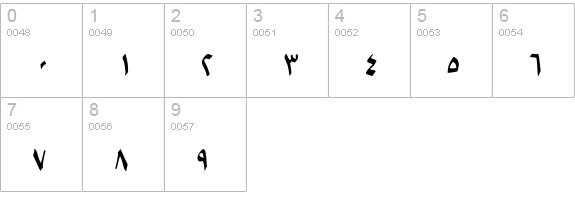
B Setareh Bold is a strong, high-contrast variant in the B typeface family \xE2\x80\x94 well suited to headlines, attention-grabbing titles, and strong calls-to-action.
B Setareh Bold is a striking and versatile font that exudes confidence and modernity. Its bold and impactful typeface is perfect for making a statement in headlines, titles, and logos. With its clean lines and strong presence, B Setareh Bold commands attention and adds a touch of sophistication to any design project. The best part? B Setareh Bold is available for free download at FontsMarket.com. This means you can easily access this premium quality font without any cost, making it a valuable addition to your font library. Whether you're a designer looking to elevate your work or a creative individual seeking to make an impact, B Setareh Bold is the perfect choice for adding a touch of boldness and style to your projects. Download it now and see the difference it can make in your designs!